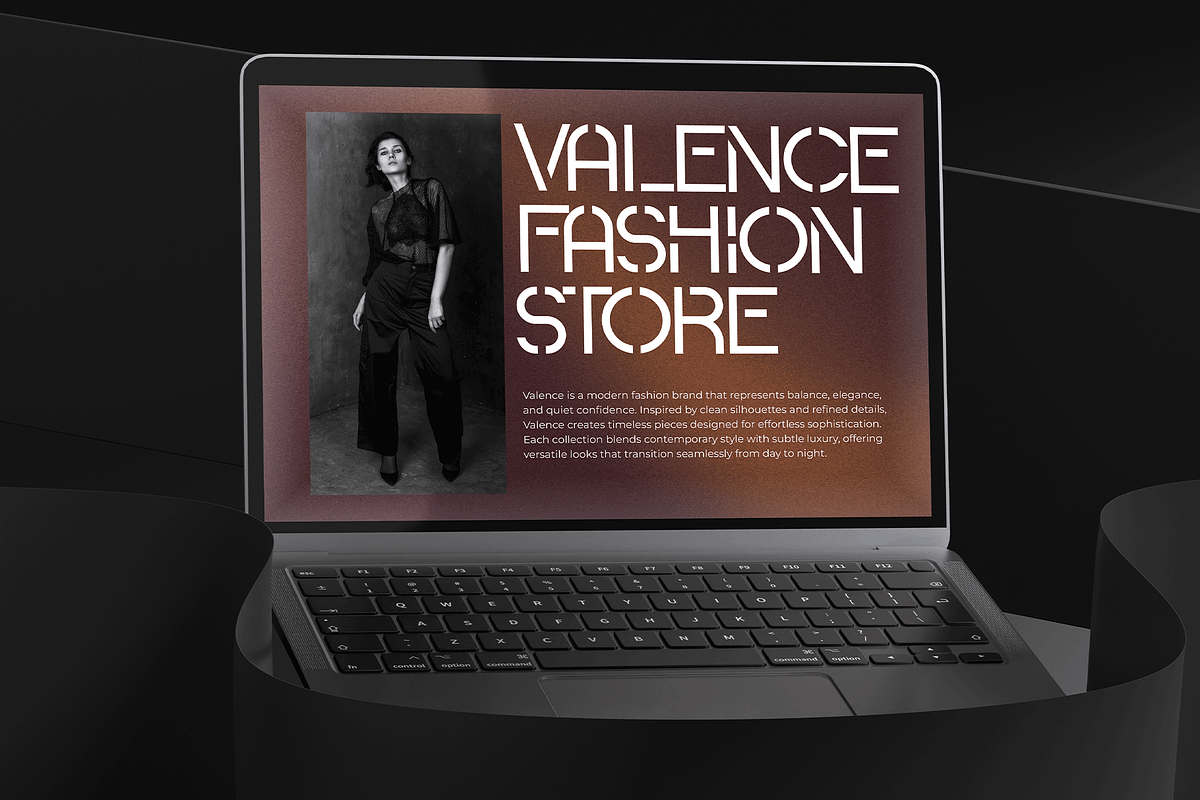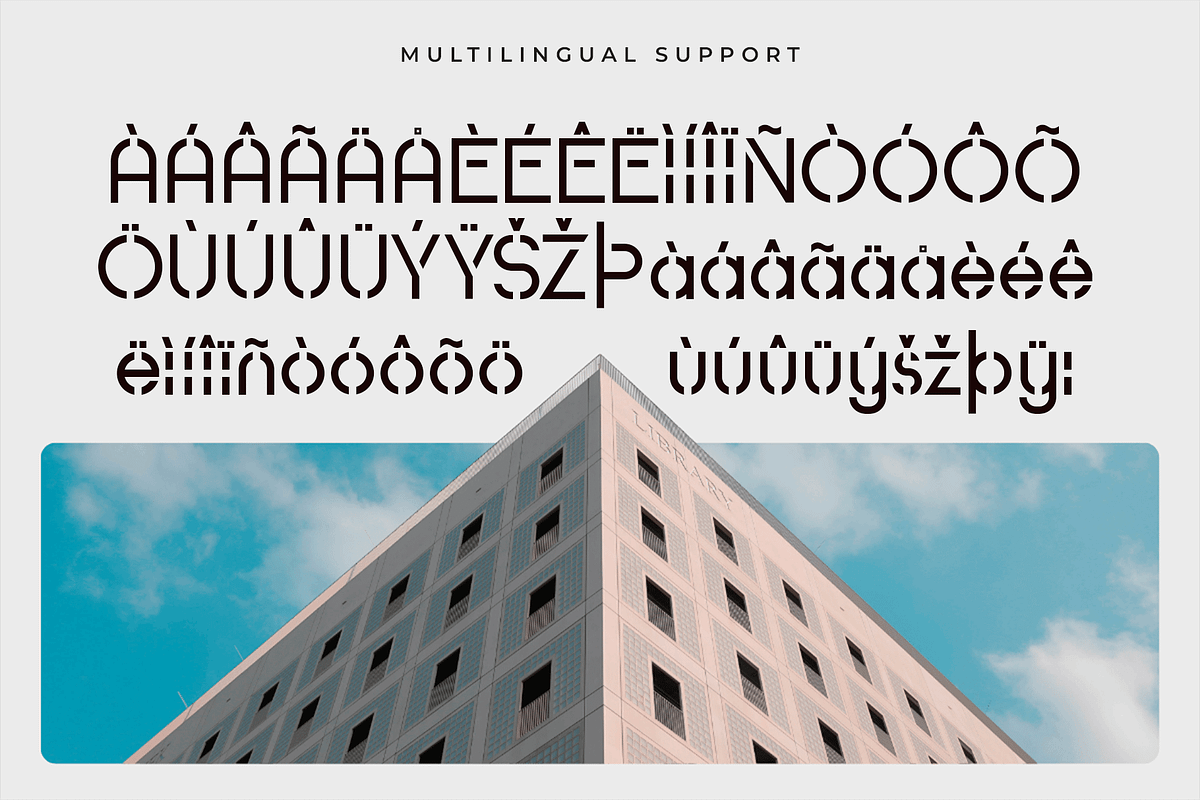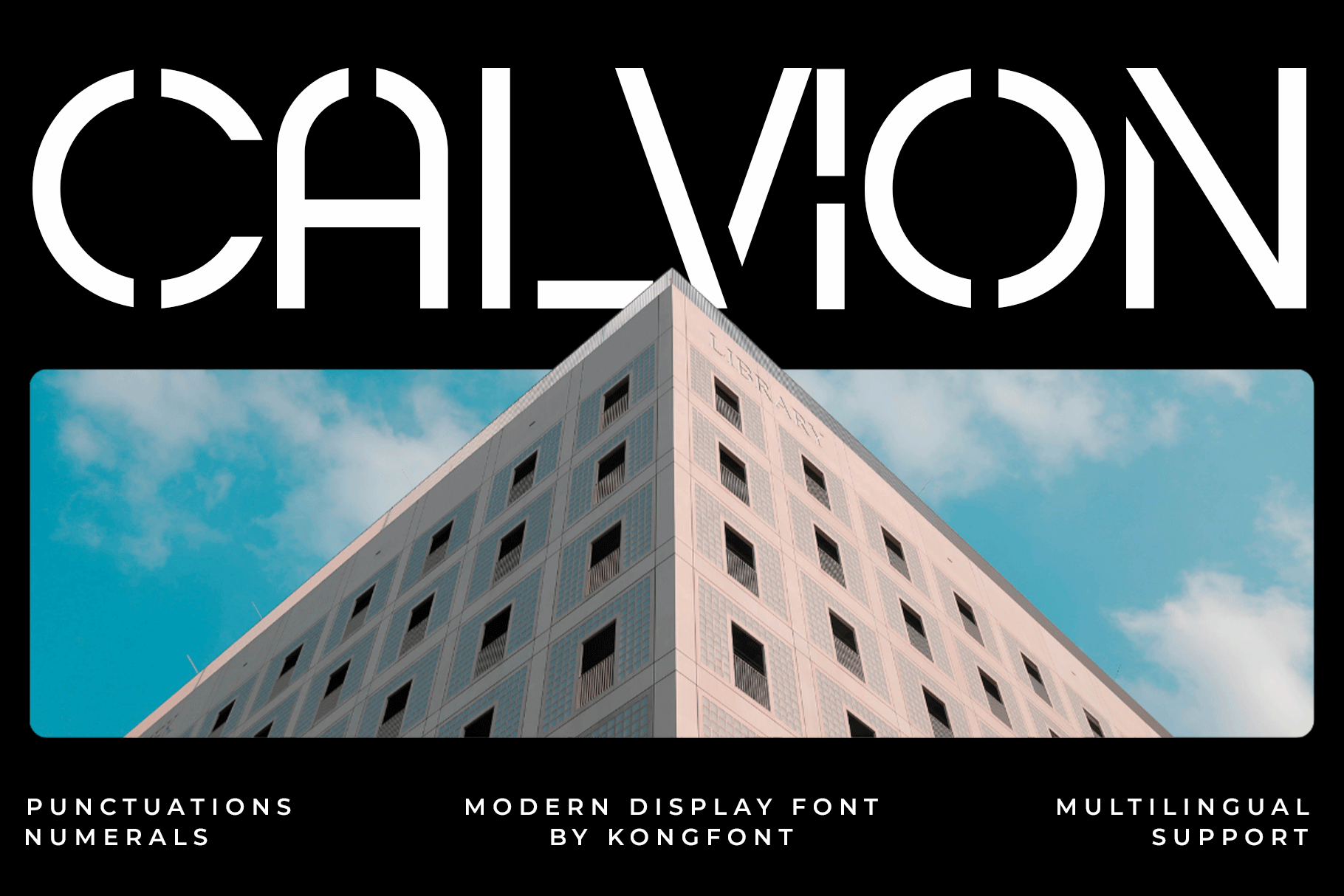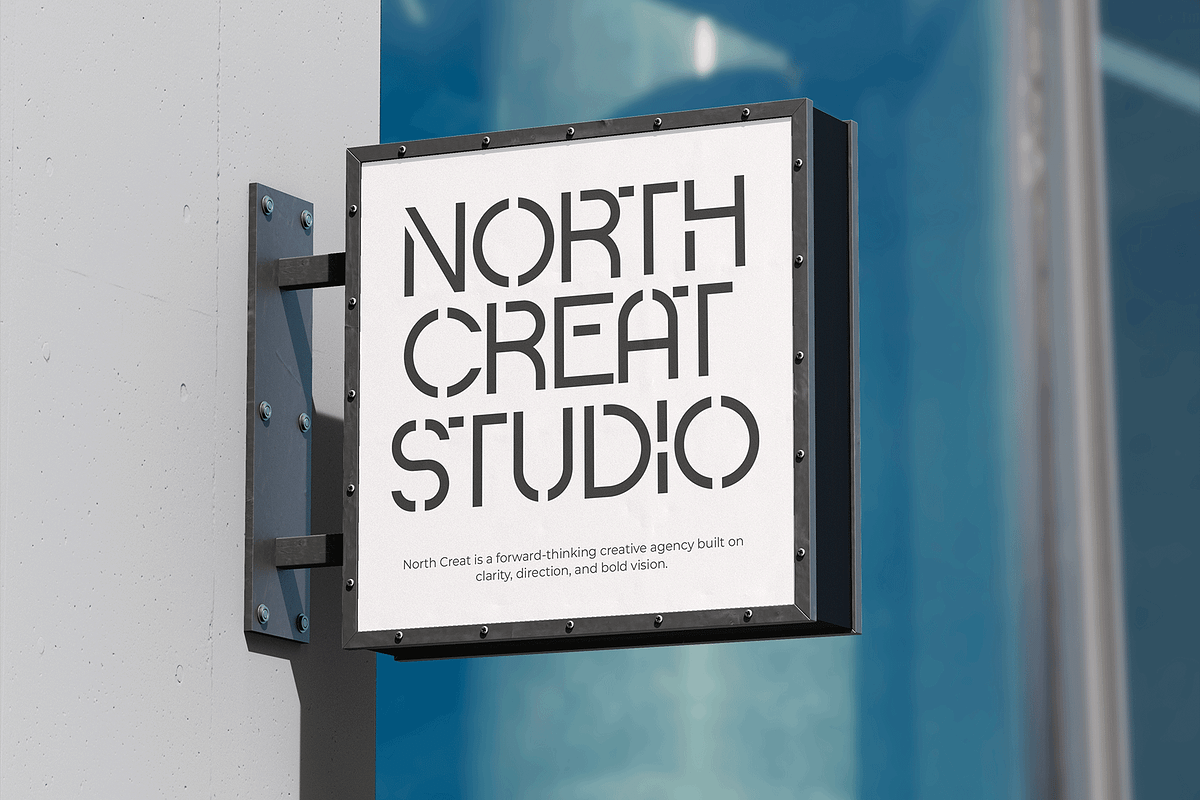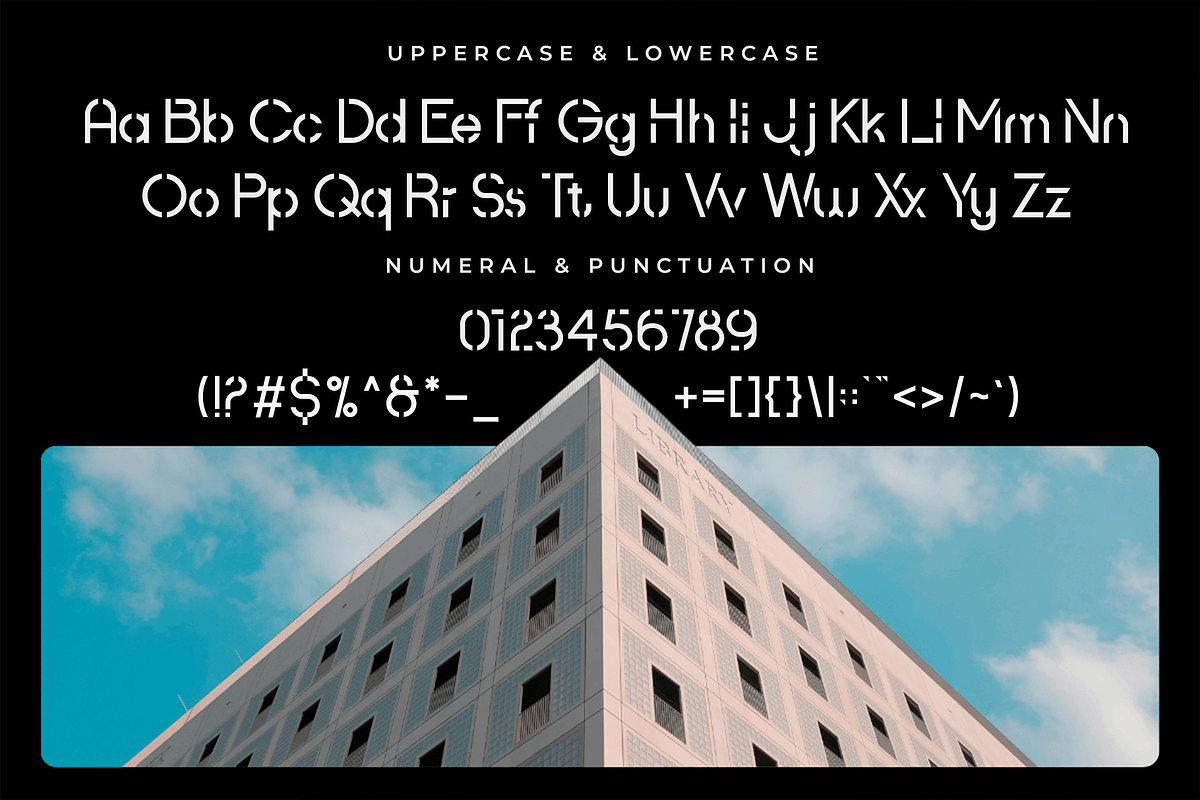
Calvion – Modern Display Font
Calvion is a modern display font designed to create strong visual impact with a sleek contemporary feel. Featuring confident letterforms, clean structure, and eye catching proportions, Calvion is perfect for designs that demand attention.
Ideal for posters, logos, branding, packaging, social media graphics, event promotions, apparel designs, and editorial headlines, Calvion stands out beautifully in large typography settings. Its bold yet refined character makes it suitable for modern, urban, creative, and lifestyle themed projects.